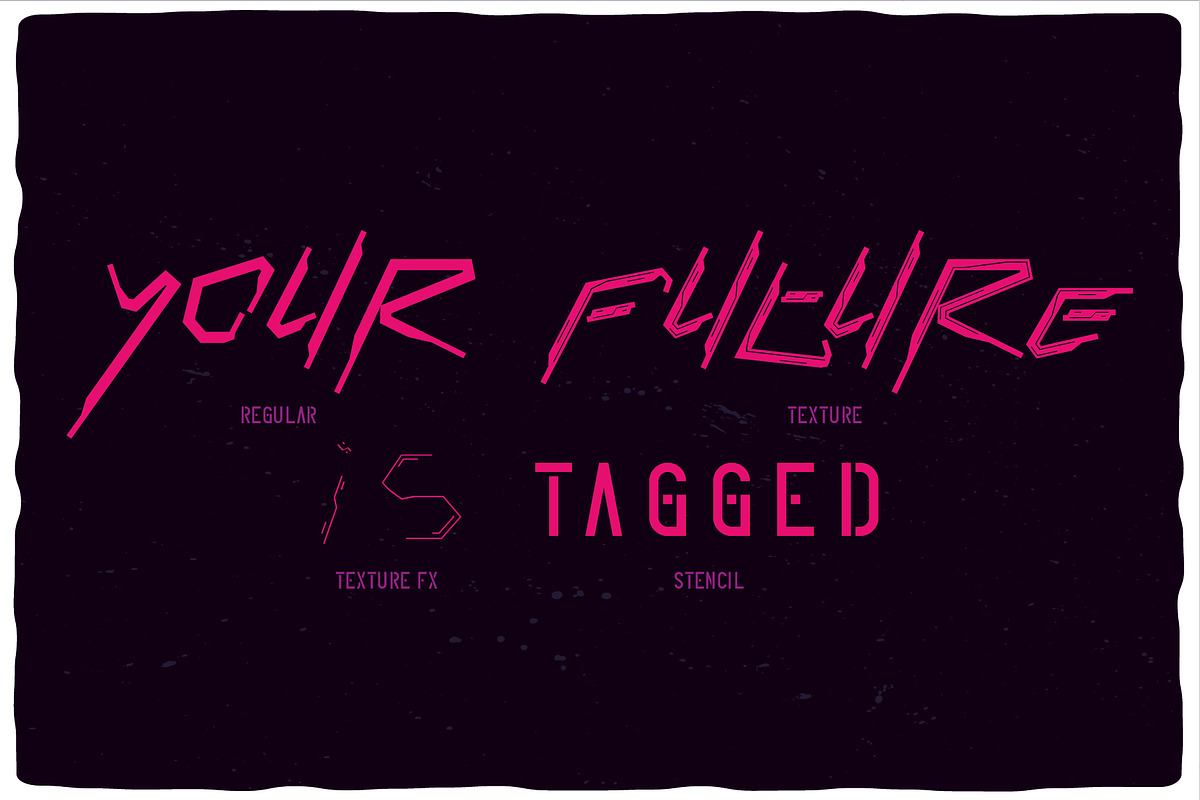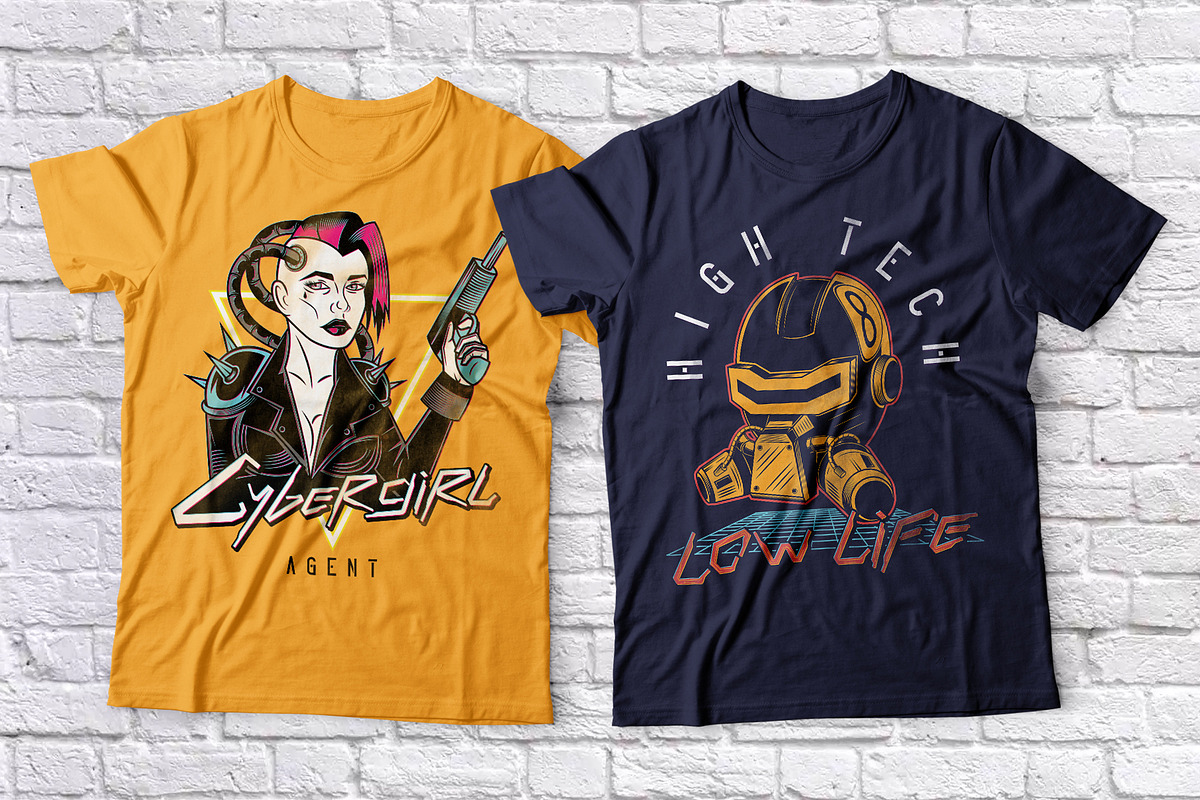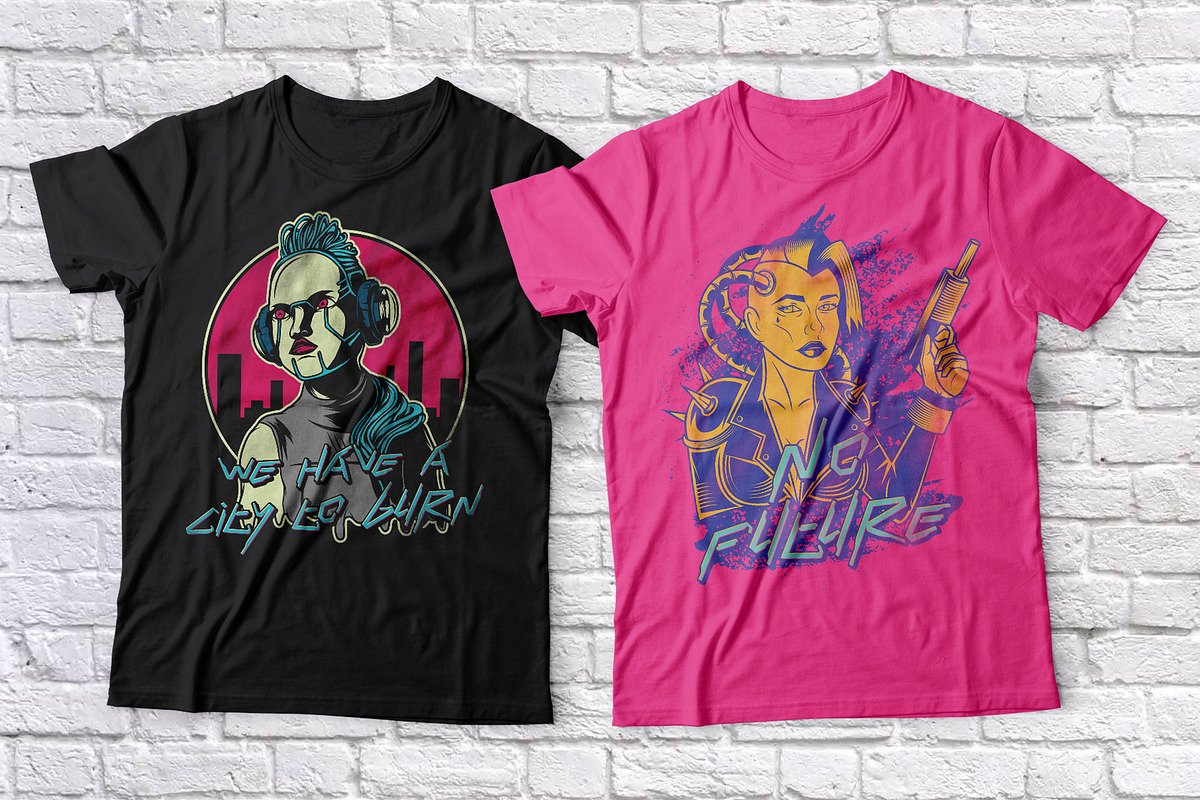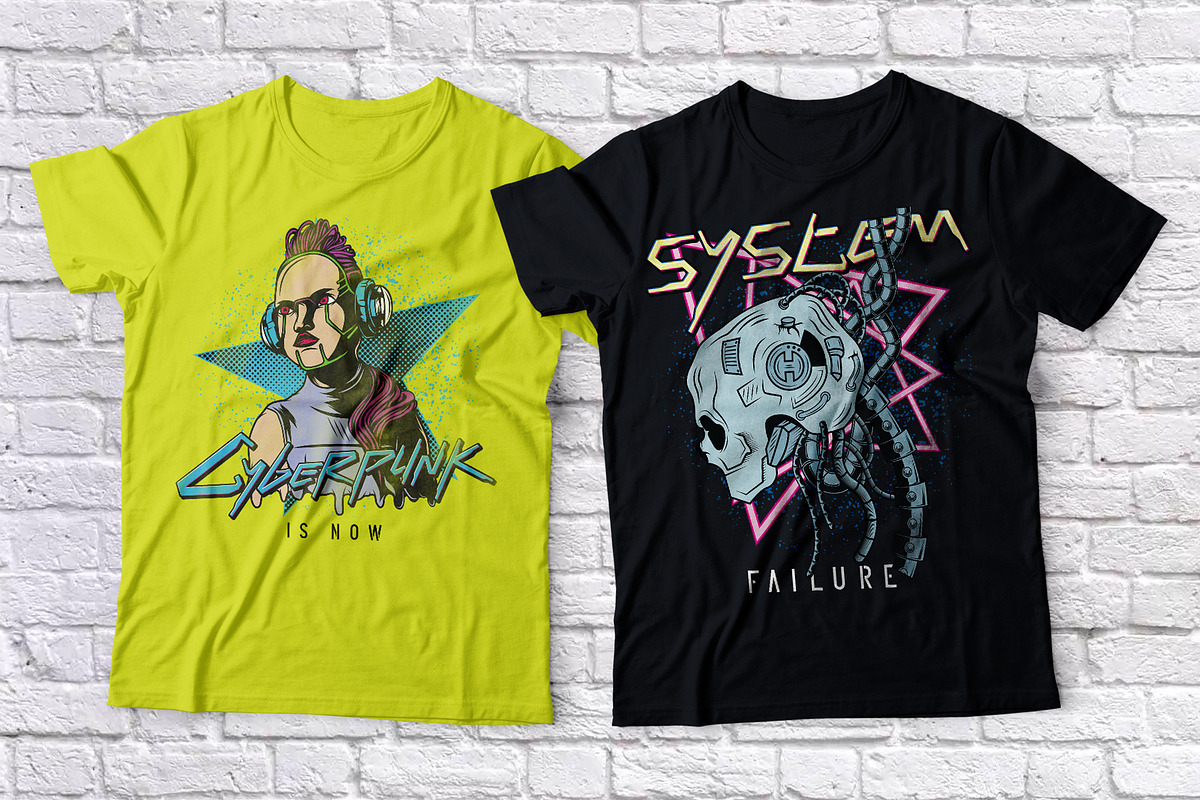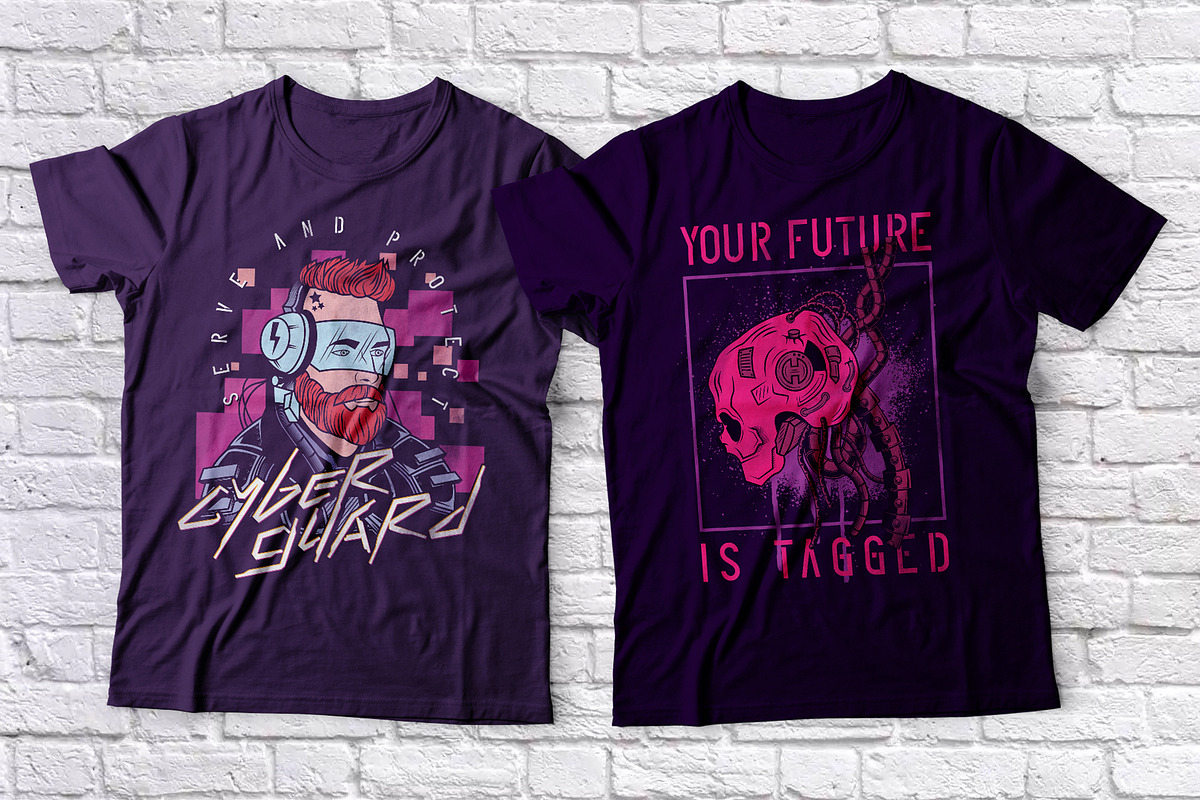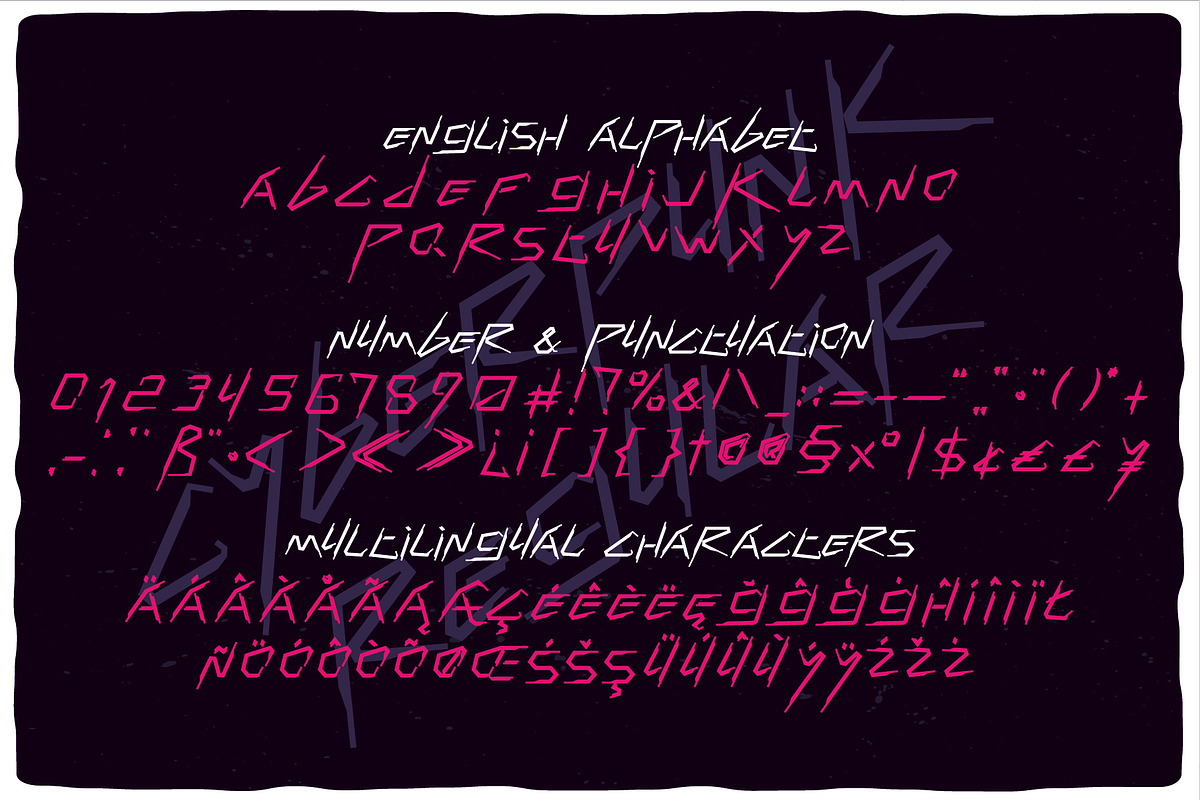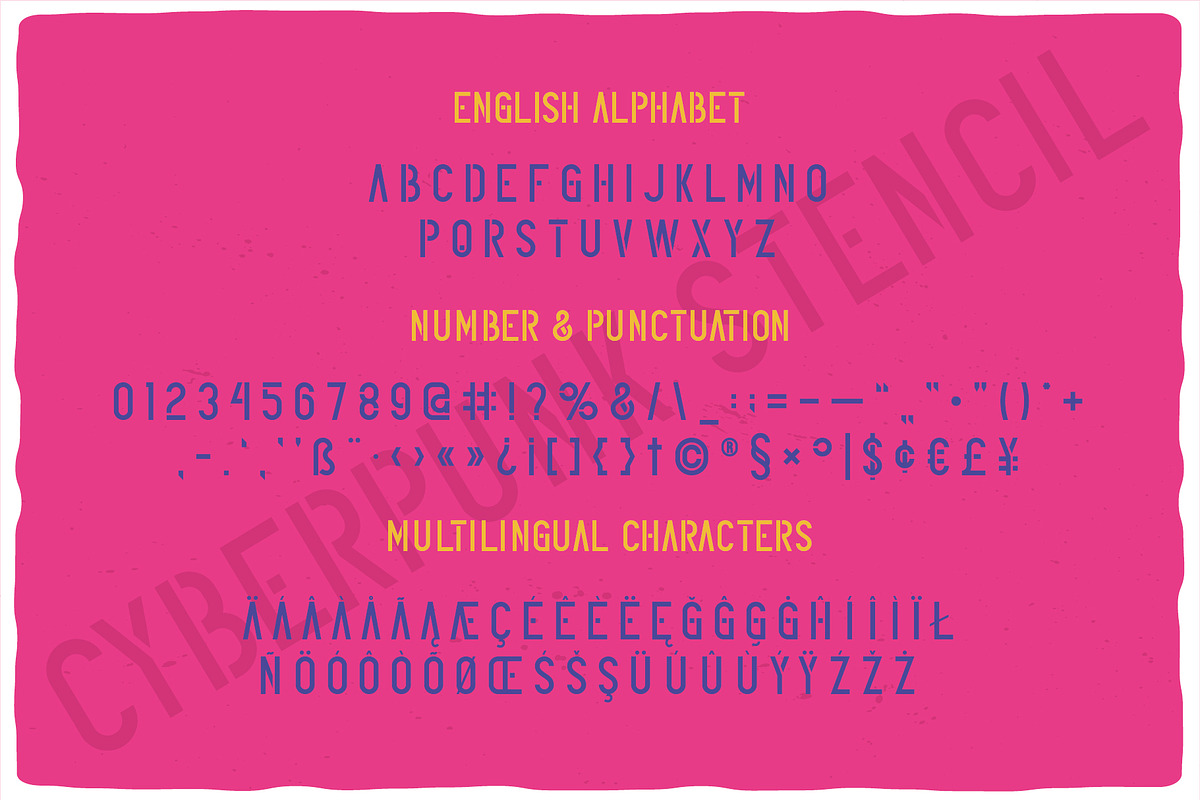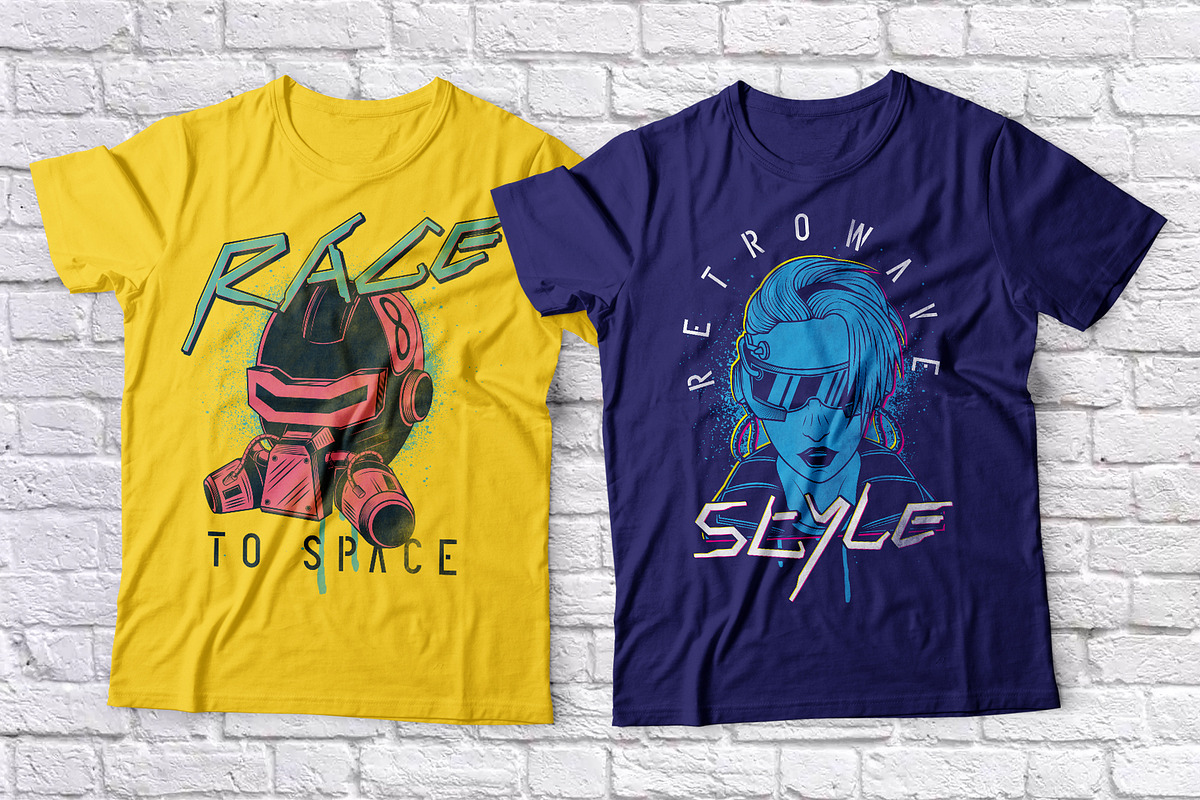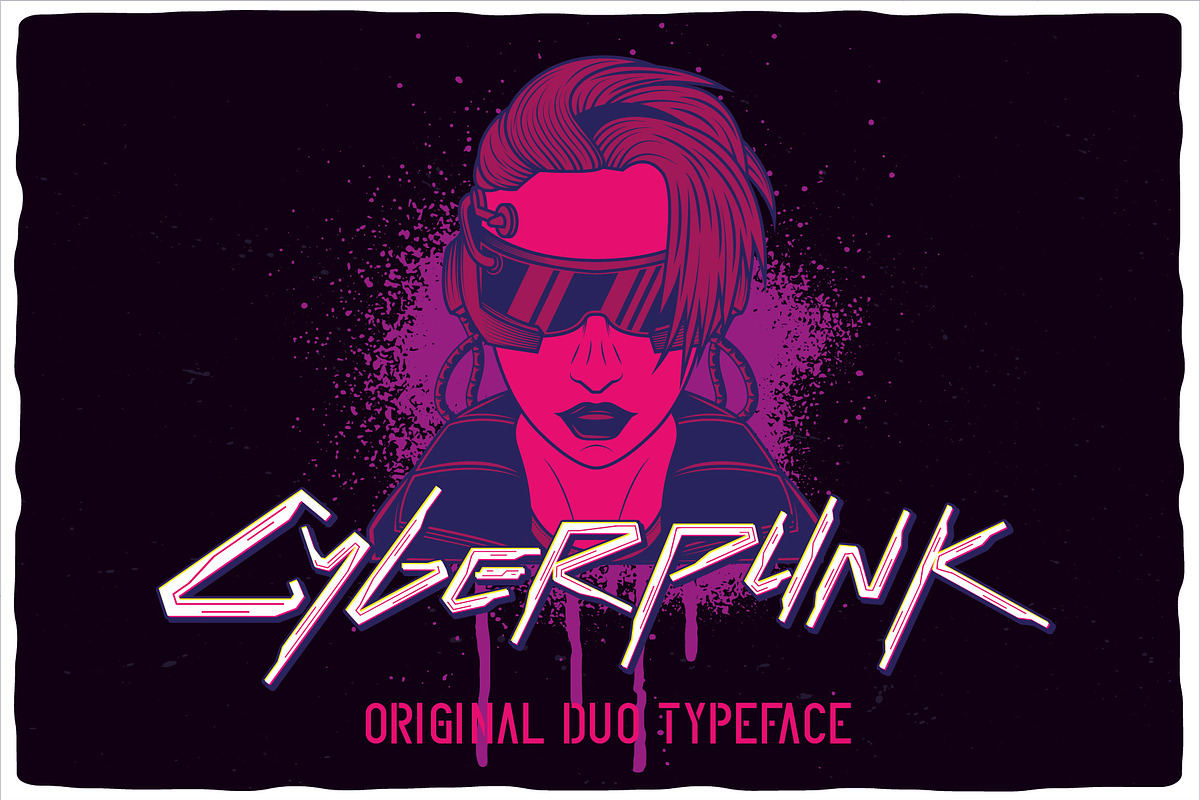
Cyberpunk Font Duo
Introducing a vintage look label font named "Cyberpunk". All available characters you can see at the screenshot. This font have 2 basic styles - Regular and stencil. Regular font have Textured style and effect style with texture. This font will good viewed on any retro design like poster, t-shirt, label, logo etc.
- A lot of additional characters and multilingual support